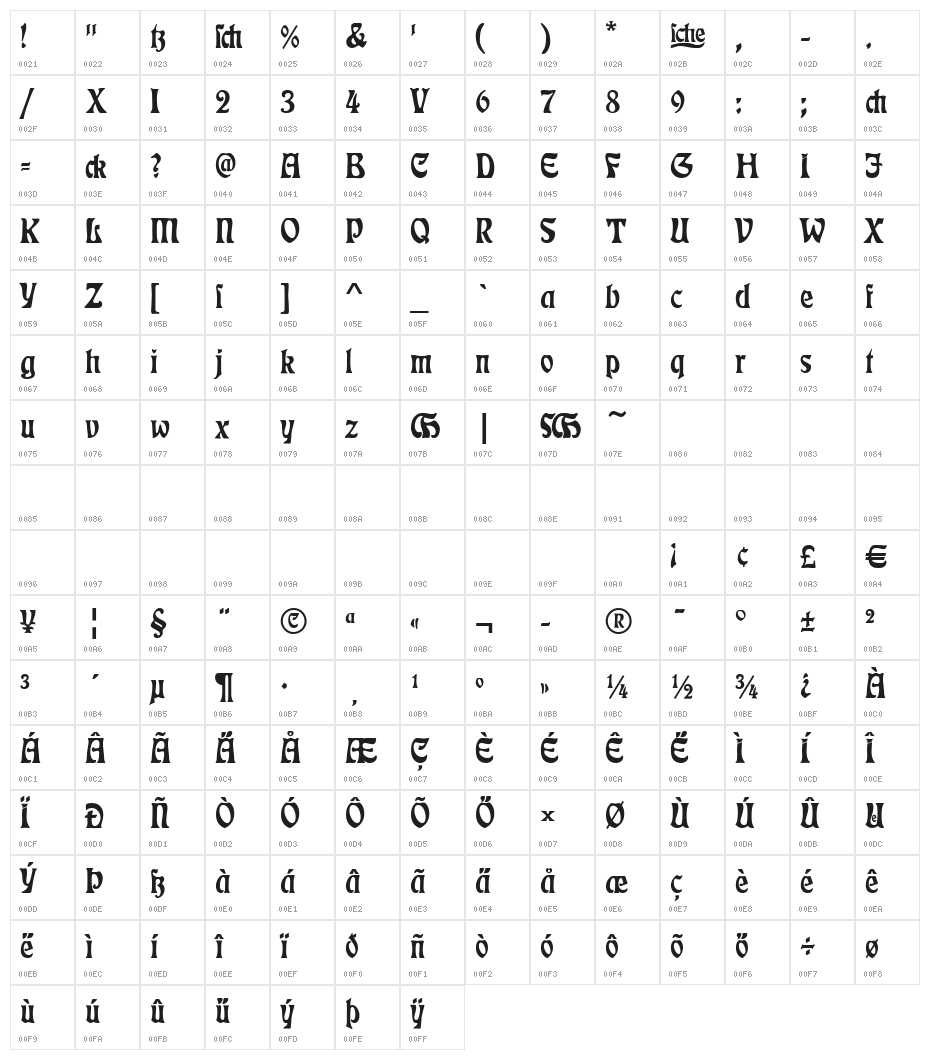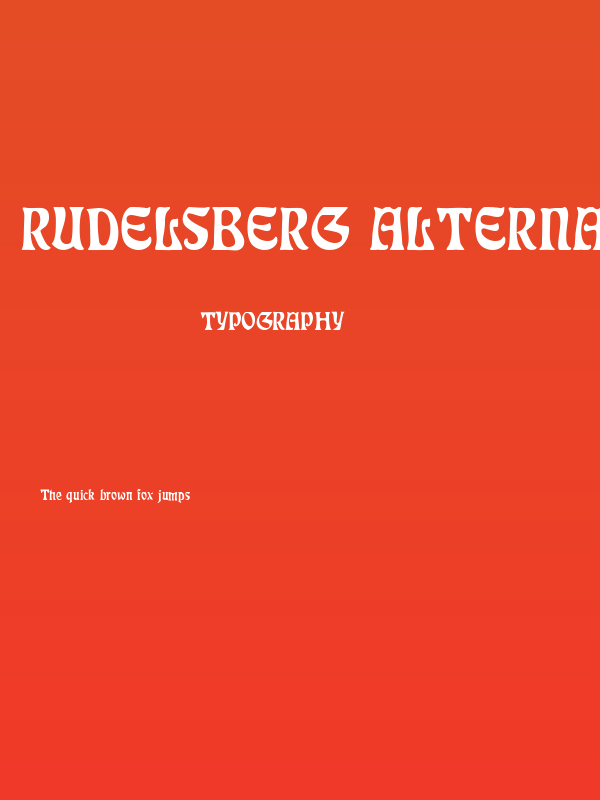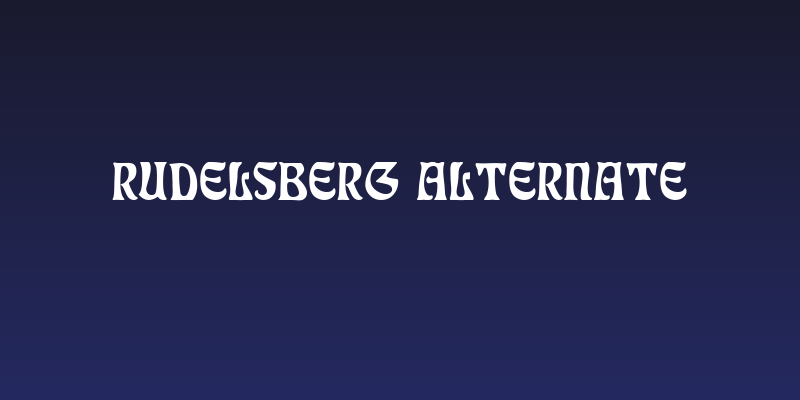
Rudelsberg Alternate Font
Rudelsberg Alternate Description
This font features a bold and distinctive style with a strong presence. The characters are crafted with a unique flair, combining elements of traditional and modern design. The uppercase letters are particularly striking, with sharp angles and bold strokes that give them a commanding appearance. The lowercase letters maintain a consistent style, offering a harmonious blend with the uppercase. Numbers and special characters are designed with the same attention to detail, ensuring a cohesive look across all text. The overall design is reminiscent of historical scripts, yet it carries a modern twist that makes it suitable for contemporary use.
| Proposed Projects | Ideal for branding, posters, and any project requiring a strong, impactful typeface. |